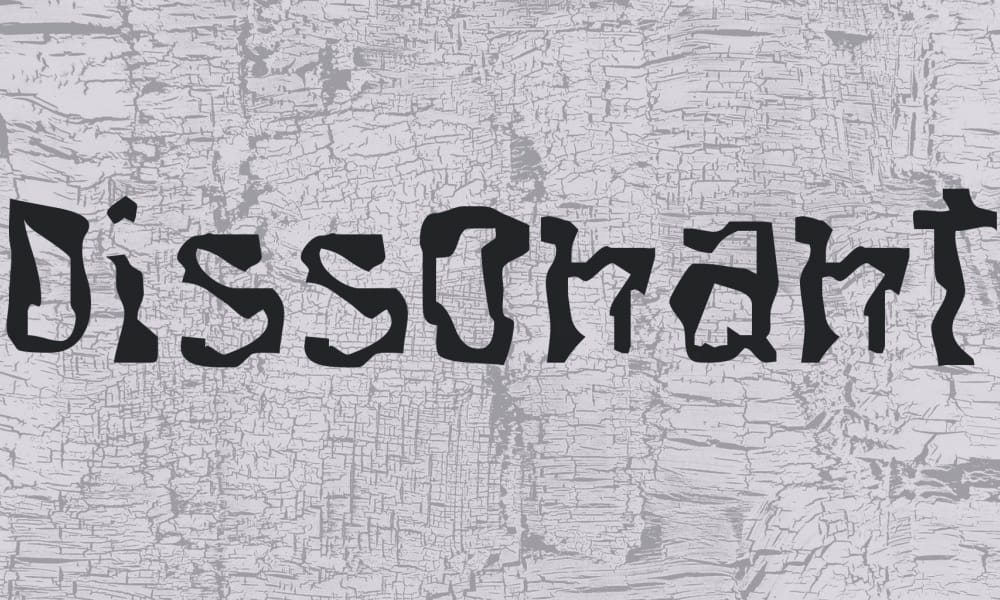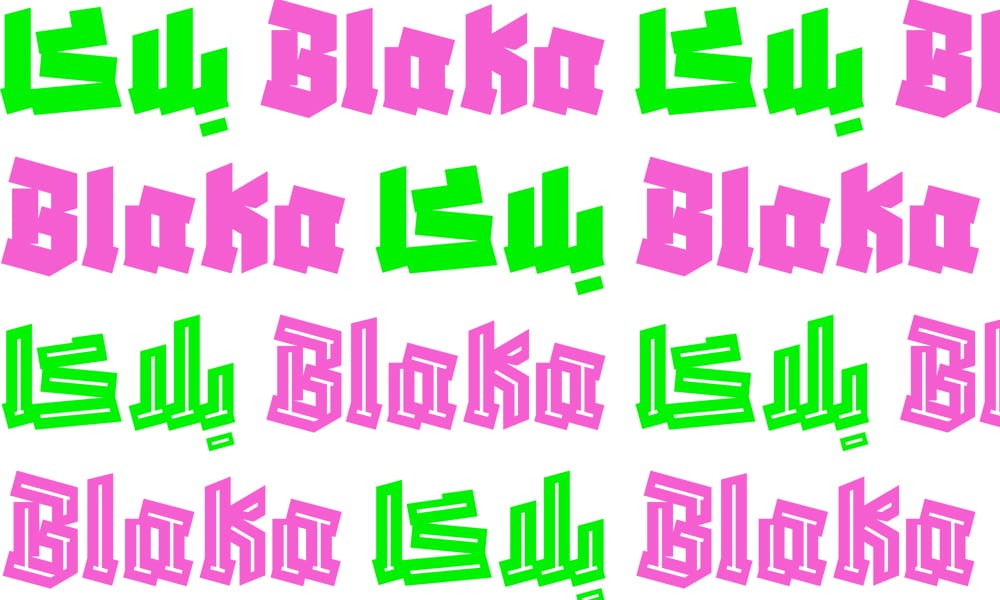
Free Gothic Blackletter Fonts for Designers
Ever spent hours scrolling through font libraries only to find Gothic Blackletter typefaces hidden behind paywalls or riddled with licensing restrictions? You’re not alone. For designers, content creators, and vintage enthusiasts, sourcing high-quality Gothic fonts that balance historical authenticity with modern usability can feel like hunting for a needle in a haystack.
This curated list of 23 free Gothic Blackletter fonts solves that problem. Whether you’re crafting a medieval-themed poster, designing a beer label, or adding drama to a wedding invitation, these fonts offer:
- Diverse styles, from jagged, traditional Blackletter to sleek modern hybrids.
Free Aviorte Blackletter Font
Aviorte Blackletter strikes the perfect balance between medieval charm and readability. Its sharp serifs and dense letterforms evoke 15th-century manuscripts, making it ideal for historical projects, book covers, or brewery branding. Unlike overly decorative Gothic fonts, Aviorte maintains clean spacing, ensuring legibility even at smaller sizes. Designers on Behance praise its versatility—pair it with minimalist layouts for contrast or use it solo for dramatic headers. Download includes OTF and TTF files, free for commercial use.
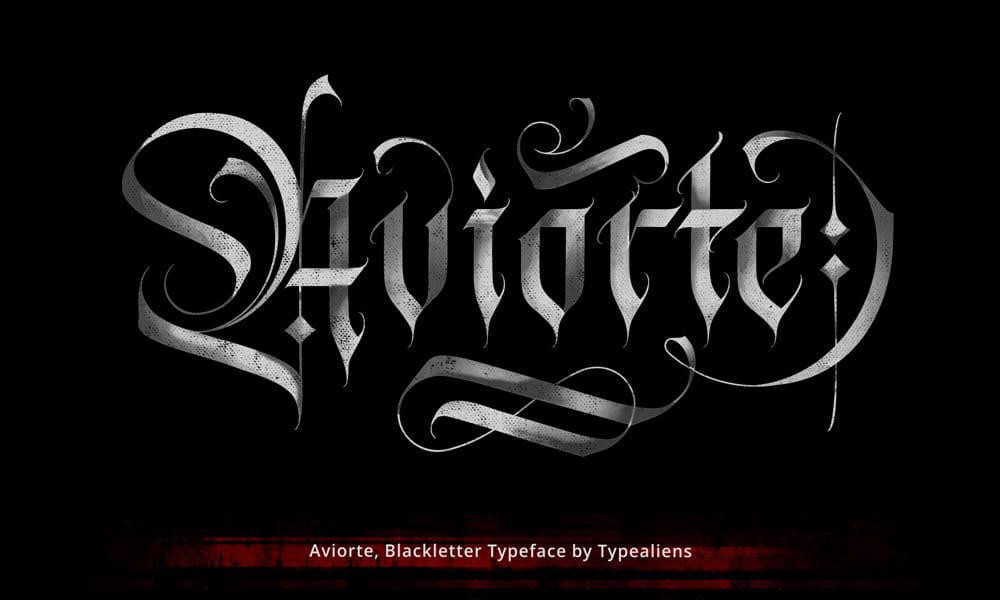
Cloister Black Font
A staple since the 1990s, Cloister Black remains a favorite for its textbook Gothic aesthetic. Its heavy strokes and intricate flourishes work beautifully on certificates, metal band logos, and Gothic wedding stationery. While not ideal for body text, it shines in large formats. Pro tip: Combine it with parchment textures and gold accents for a luxe, antique feel. FontSpace users note its reliability across print and digital mediums.
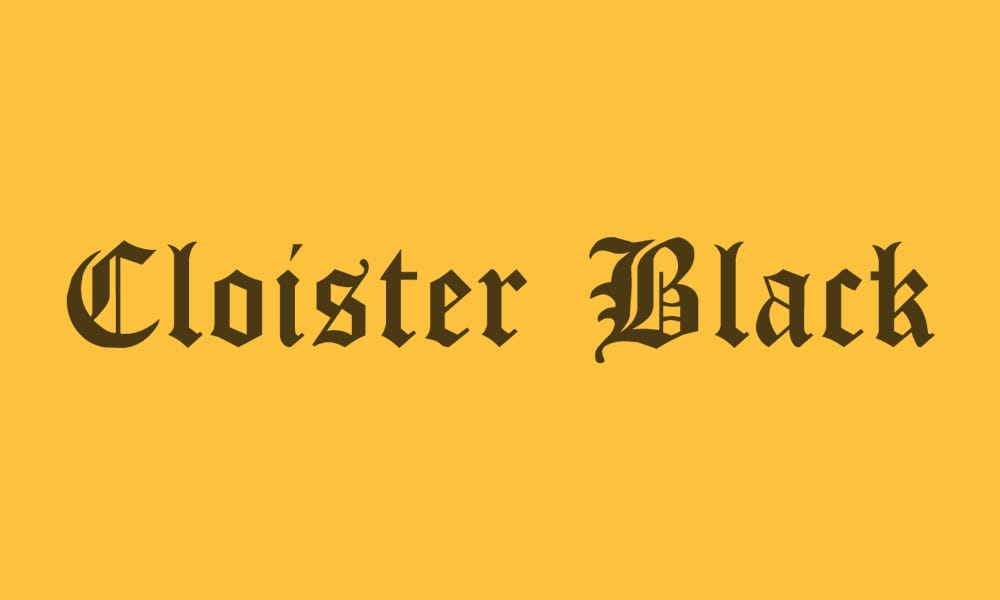
Gothic Ultra Font
Gothic Ultra delivers bold, high-contrast letterforms perfect for posters, album covers, or headlines demanding attention. Its exaggerated serifs and tight spacing create a dense, almost metallic texture, evoking vintage horror movie titles. Unlike many free Blackletter fonts, Gothic Ultra includes multilingual support (Latin Extended-A) and works seamlessly in Adobe Suite. Designers on BvFonts praise its versatility in grunge and steampunk projects. Free for personal use; commercial licenses available at $29.
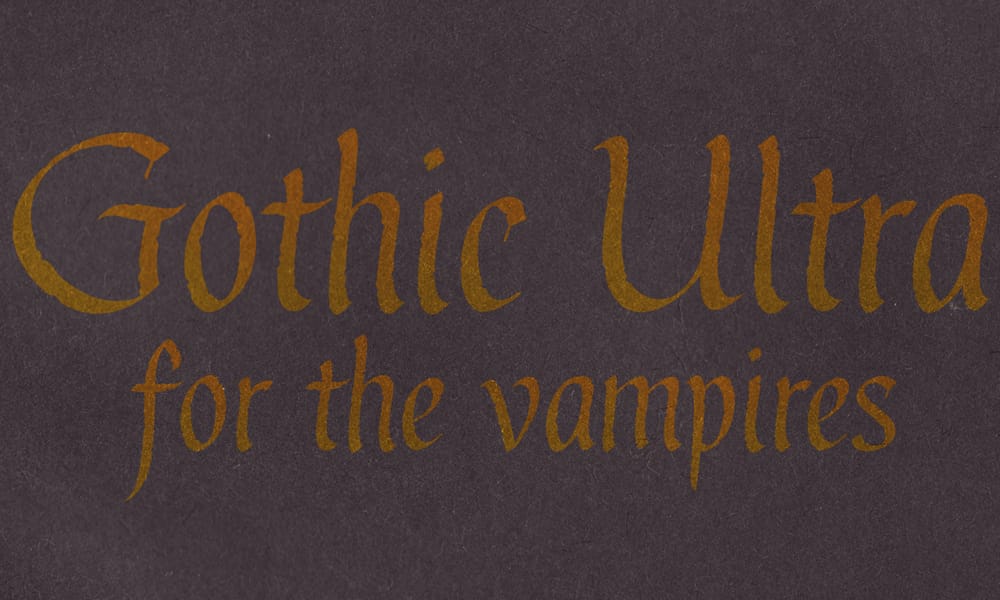
MKantzley Font
MKantzley blends Blackletter’s traditional structure with minimalist linework, ideal for modern branding or editorial layouts. The font’s thin strokes and open counters ensure readability on digital platforms, while its subtle flourishes add a touch of elegance. Use it for magazine headers, luxury packaging, or social media graphics. Dafont users highlight its clean OTF files and easy integration with Cricut Design Space. Free for personal and commercial projects.
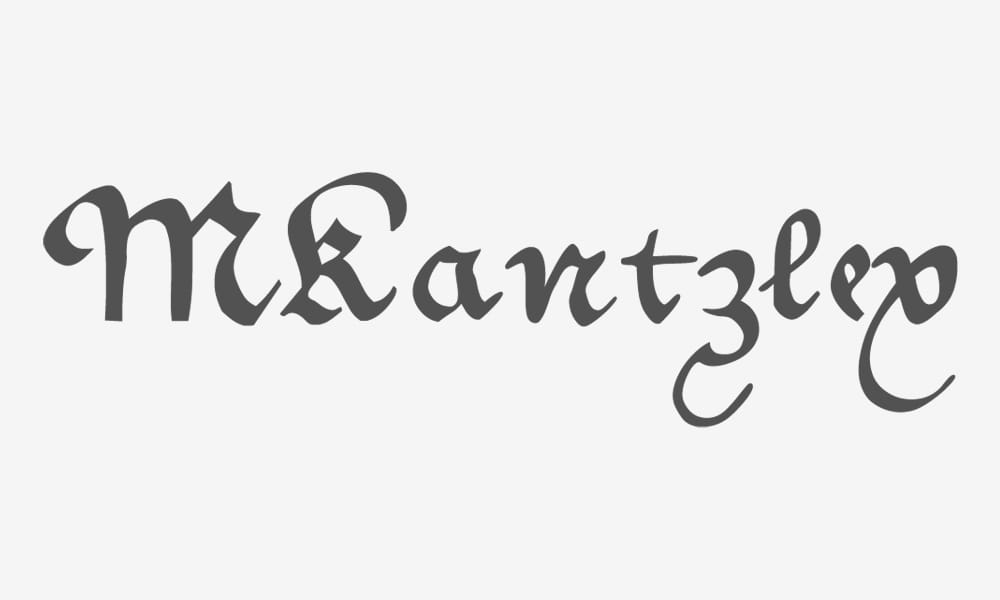
Free Modern Gothic Typeface
This Behance-exclusive typeface reimagines Gothic calligraphy with sleek, geometric shapes. Its balanced curves and sharp angles make it a standout for tech startups, app interfaces, or futuristic branding. The download includes regular and italic variants, plus SVG files for laser cutting. Designer reviews note its compatibility with Procreate brushes for hand-lettered effects. Free for personal use; contact the creator for commercial licensing.
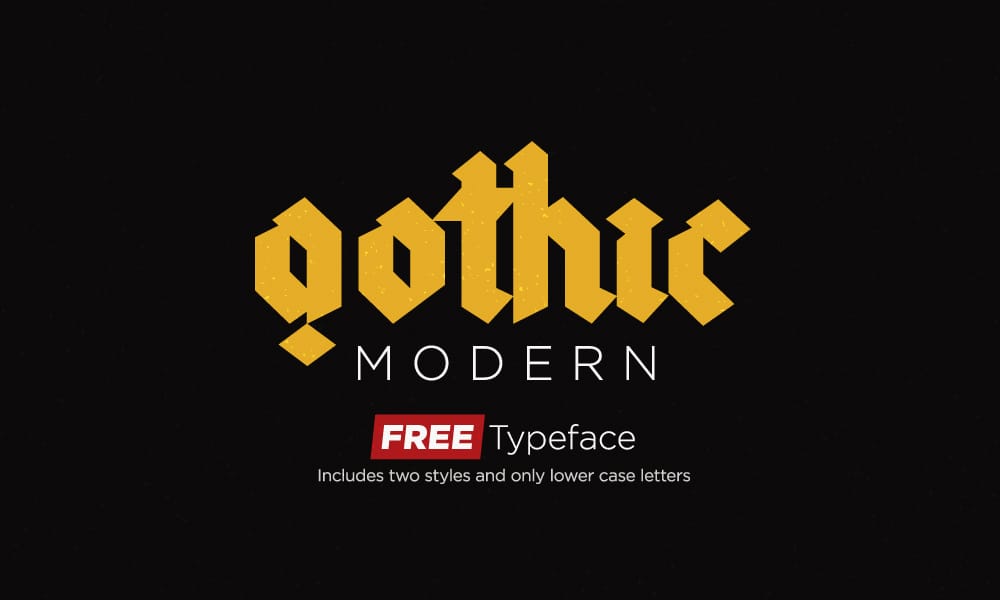
Gotfridus Font
Gotfridus offers a modern twist on Blackletter with softened edges and geometric undertones. Designed by Swiss typographer GGBot, it’s perfect for edgy branding, album art, or tech startups wanting a “dark academia” vibe. The font includes ligatures and alternate characters, allowing creative customization. Free for personal use; commercial licenses start at $15.
Goth And Gothic Font
Goth And Gothic offers a playful twist on Blackletter, with irregular strokes and hand-drawn imperfections. Ideal for indie game interfaces, tattoo designs, or edgy merch, this font feels organic and rebellious. The package includes alternate glyphs and dingbats for added creativity. Gumroad users rave about its textured PNG overlays, which add depth to digital art. Free for personal use; commercial license available at $15.
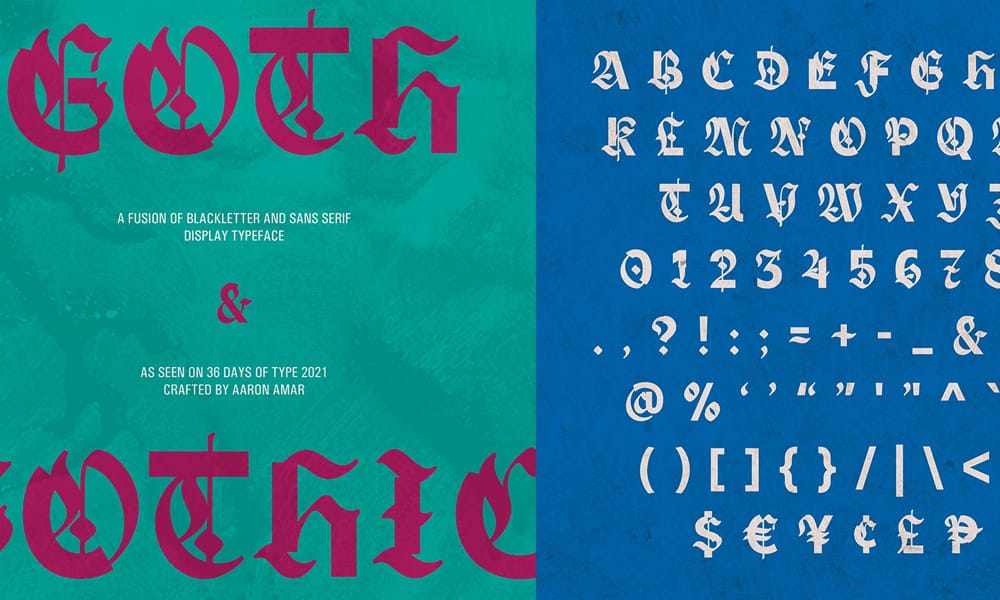
Deutsch Gothic Font
Deutsch Gothic stands out for its historical accuracy, modeled after 19th-century German print. Its narrow spacing and angular terminals make it a go-to for beer labels, historical reenactment materials, or academic publications. OFL-licensed, it’s free for commercial use, including resale. Font Squirrel’s design community recommends pairing it with sans-serifs like Arial for contrast in brochures.
Chomsky Font
Chomsky’s hybrid design merges Blackletter with Roman serifs, creating a timeless aesthetic for book titles, news mastheads, or political campaigns. Its ink-trapped edges ensure crisp printing at small sizes. Hosted on GitHub, this open-source font is praised for its developer-friendly WOFF files and CSS integration. Free for all uses, including commercial.
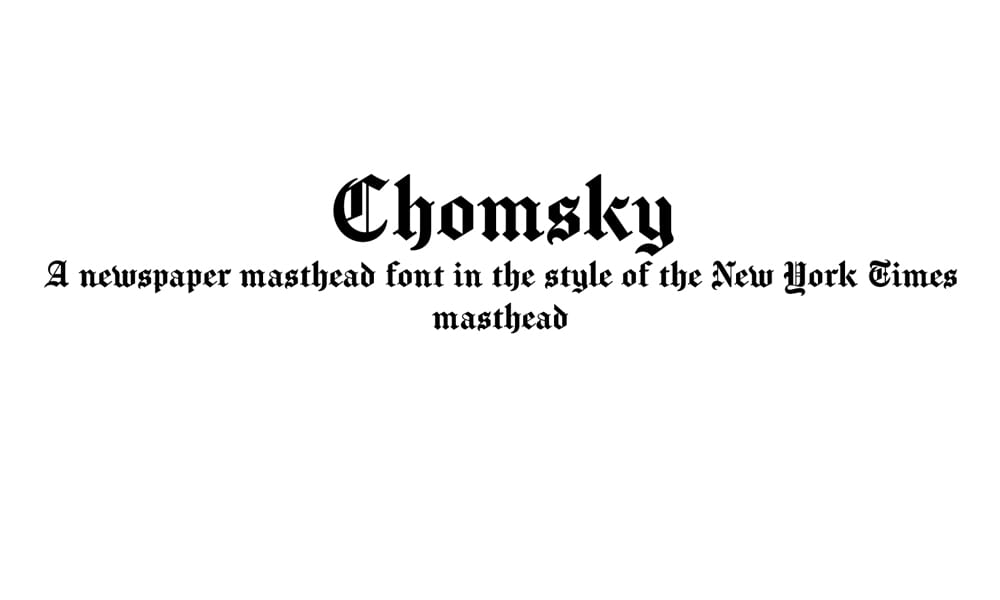
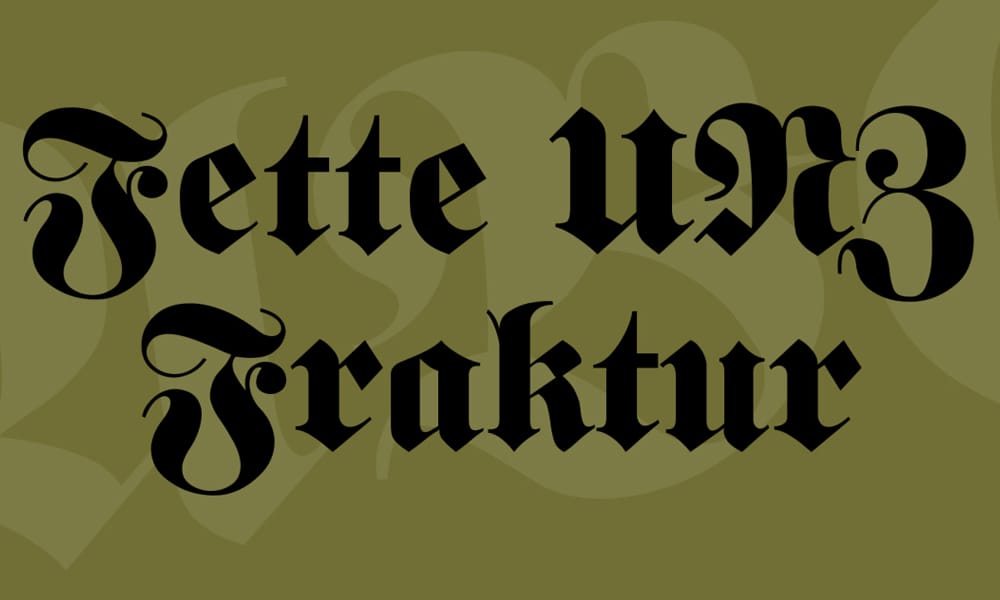
UnifracturCook Font
Pirata One
Uncial Antiqua Font
Germania
Grenze Gotisch Font
Prociono
Texturina
Medieval Sharp Font
Miltonian Tattoo Font
Balthazar Font
Almendra Display
Griffy Font
Lancelot Font